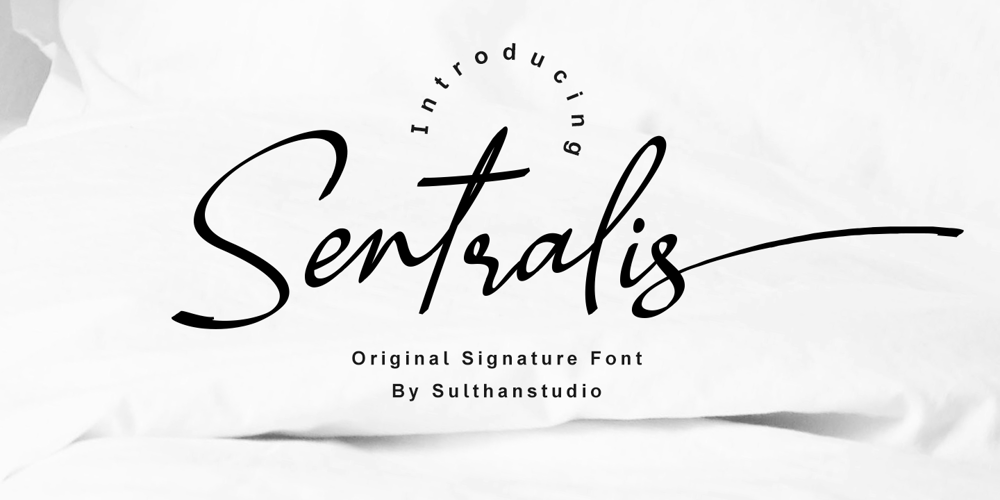
Sentralis signature
Sentralis signature font
Sentralis signature Font Family was designed by Nasrullah and published by Sulthan Studio. Sentralis signature contains 1 styles and family package options. hello font lovers, I made a new, very elegant signature font using a calligraphy pen on paper, then I made this font while maintaining the original character so that it becomes very extraordinary when used, with lots of ligatures in it and also pen strokes at the end like swashes in lower case letters .This font has been PUA coded so it is easy to use. Equipped with uppercase and lowercase letters, numbers, punctuation and language support